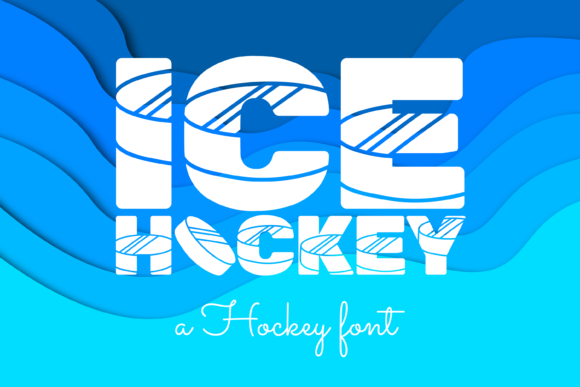
Ice Hockey Font
Ice Hockey is an incredibly cool decorative font. Whether you use it for custom designs, DIY crafts, or just any creation that requires a lovely touch, this font will be an amazing choice.